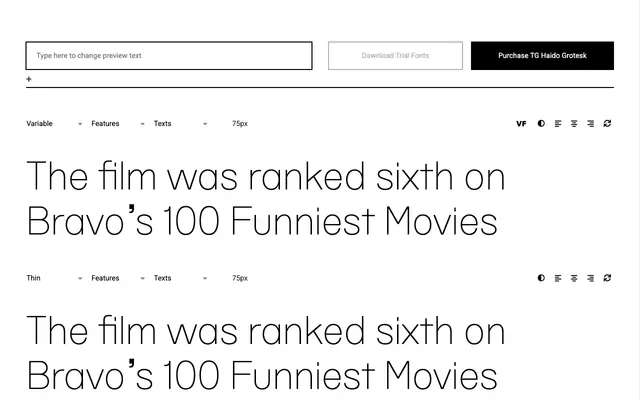
TG Haido Grotesk
Tegamitype · Iqbal Firdaus · 2020
A neutral contemporary grotesque by Iqbal Firdaus with ink traps for legibility at small sizes, available across nine weights with matching italics and a variable font.
Released in 2020, TG Haido Grotesk draws on post-modernist influences to produce a clean, general-purpose grotesque with broad application across modern design work. Ink traps built into the letterforms improve legibility at small sizes and are particularly suited to print. The family covers Latin and Cyrillic scripts across more than 100 languages, and includes alternates, ligatures and a variable font alongside the 18 static styles.
The foundry classifies this as a grotesk sans-serif with post-modernist influence. Ink traps and neutral letterforms are characteristic of the grotesque tradition.